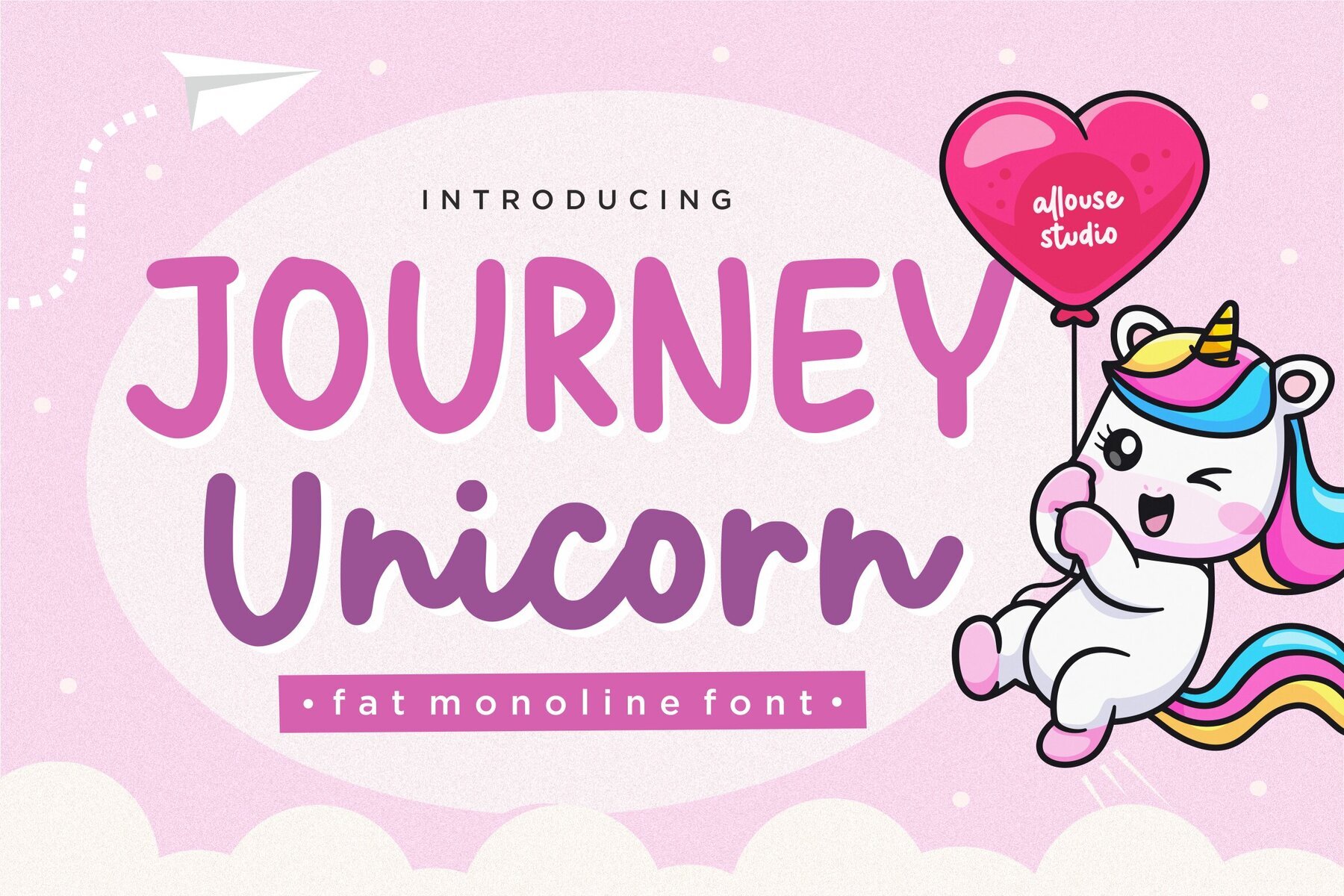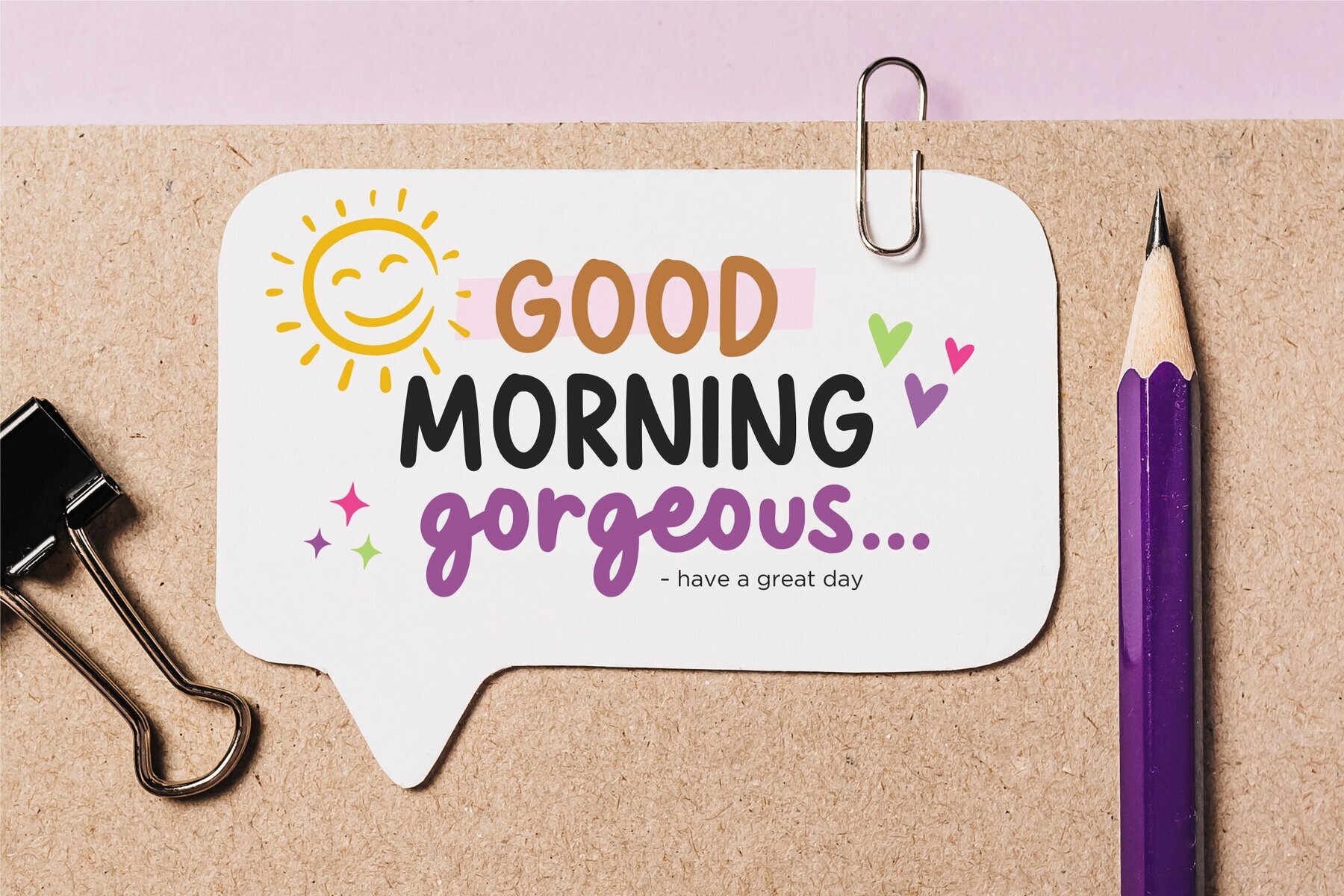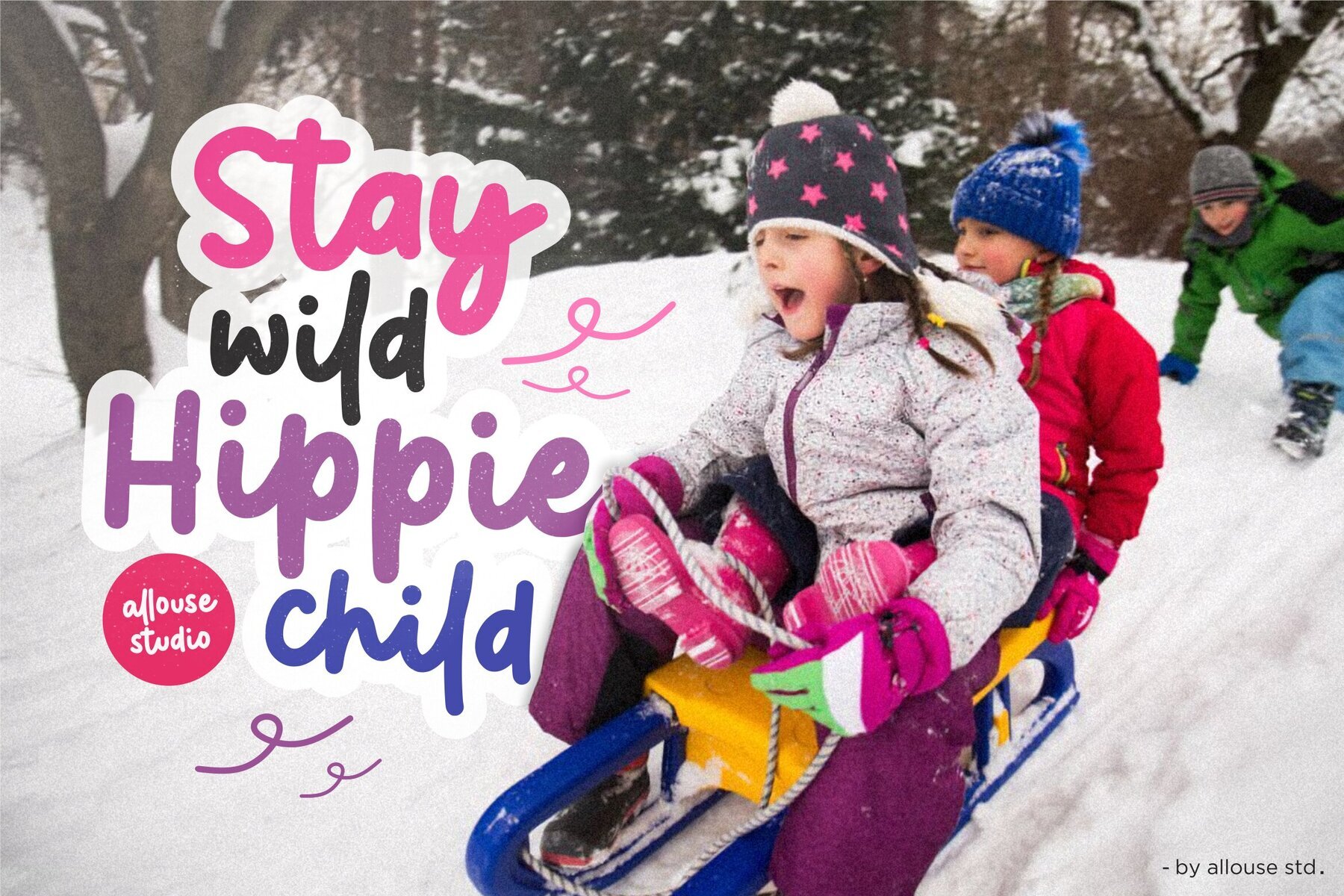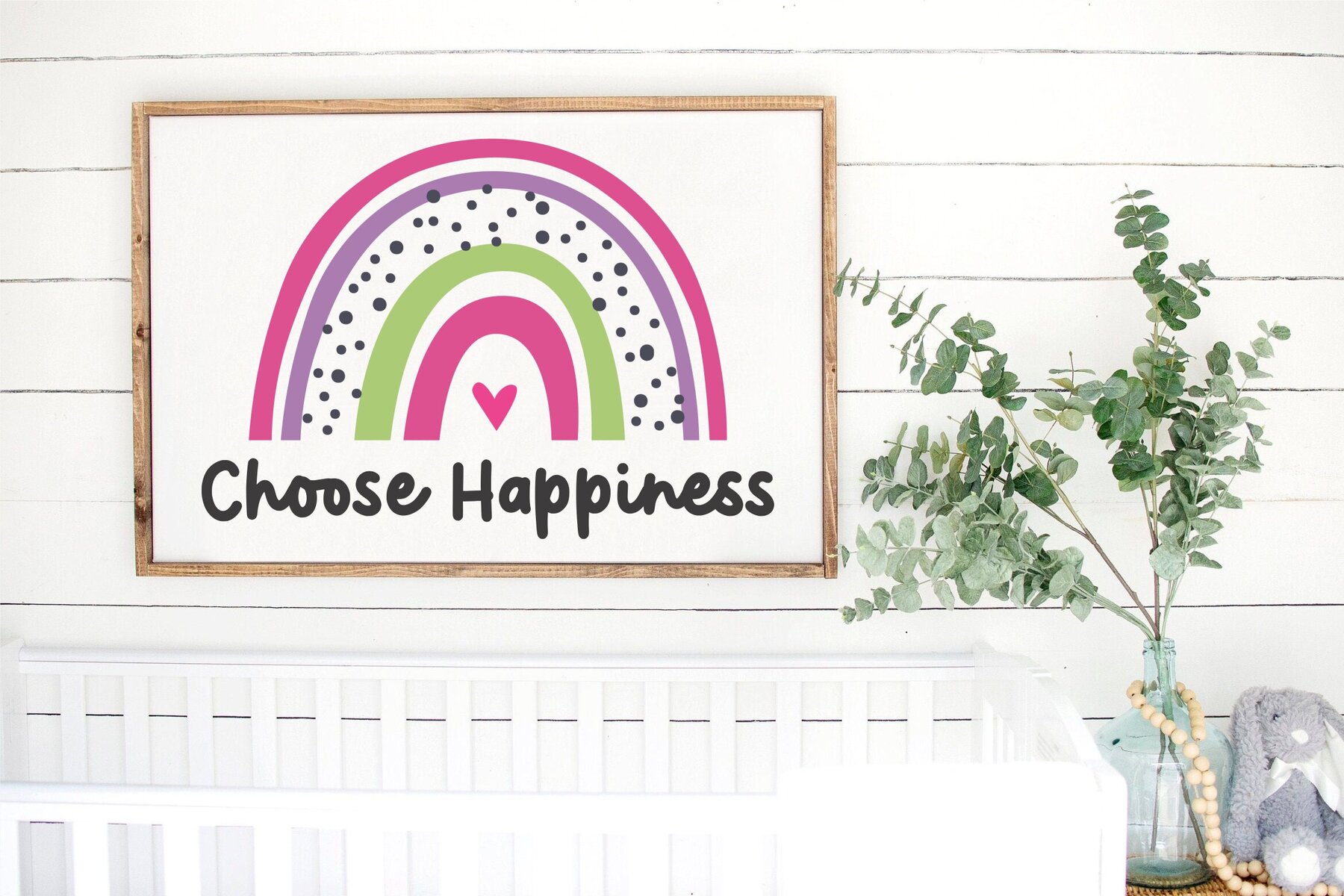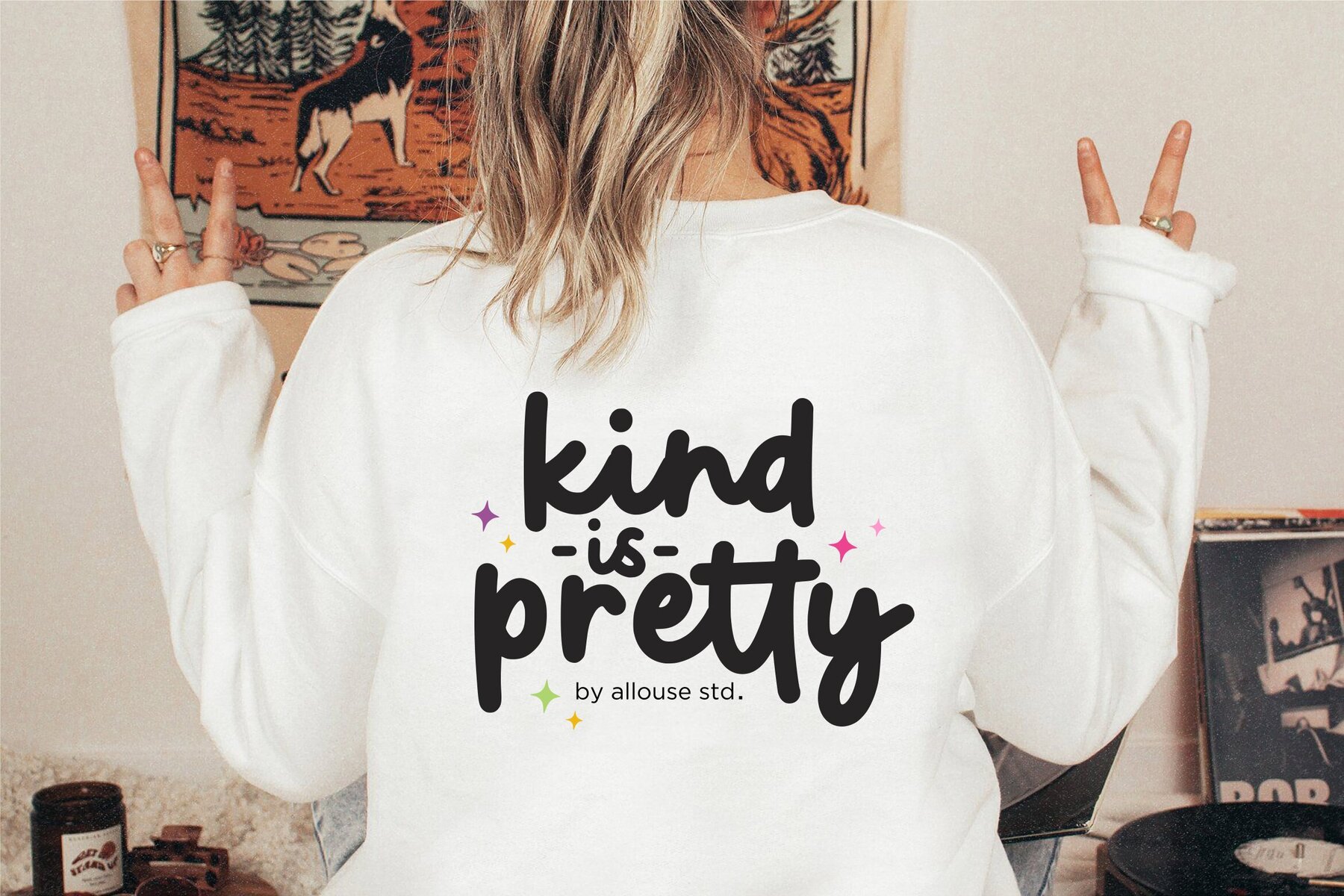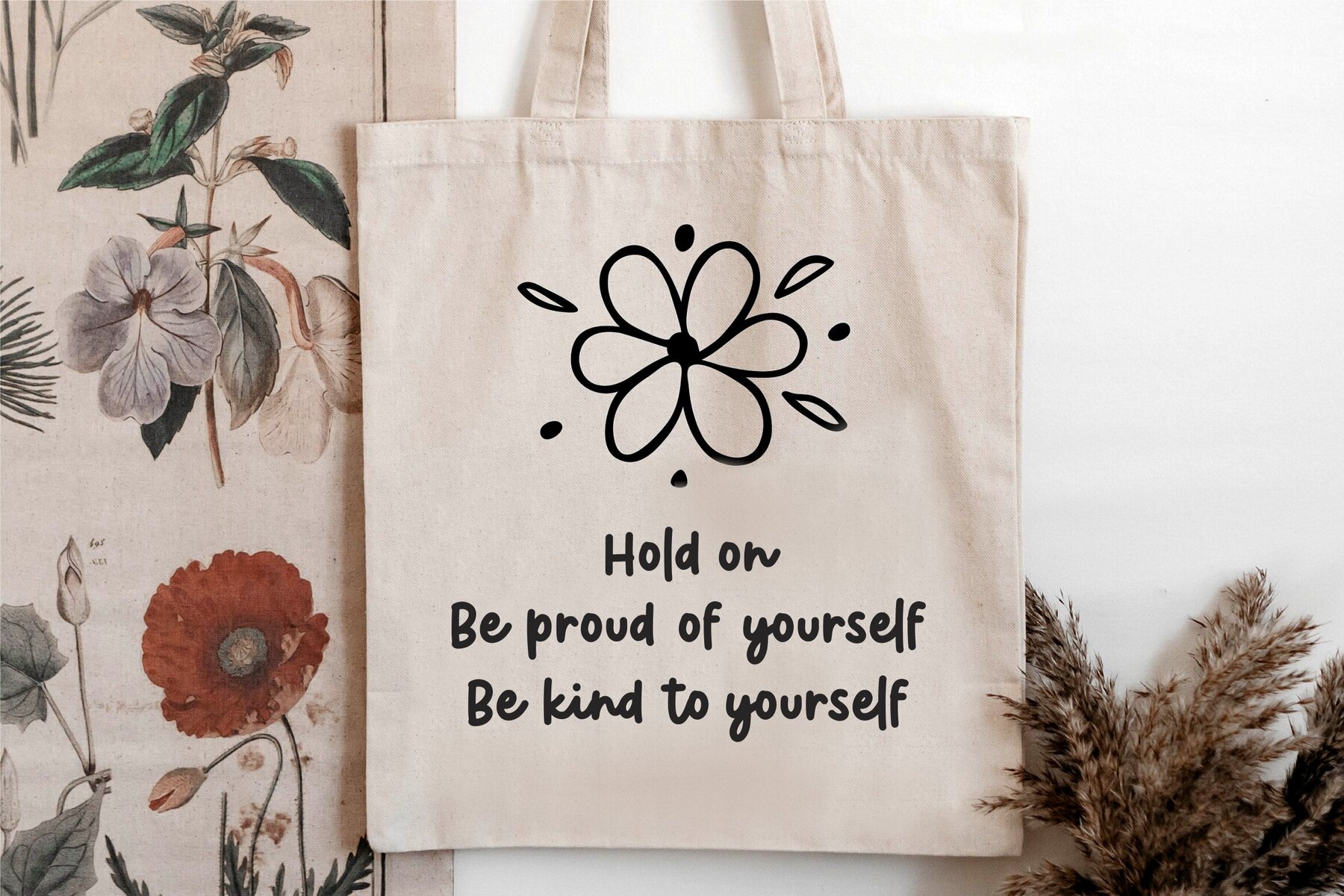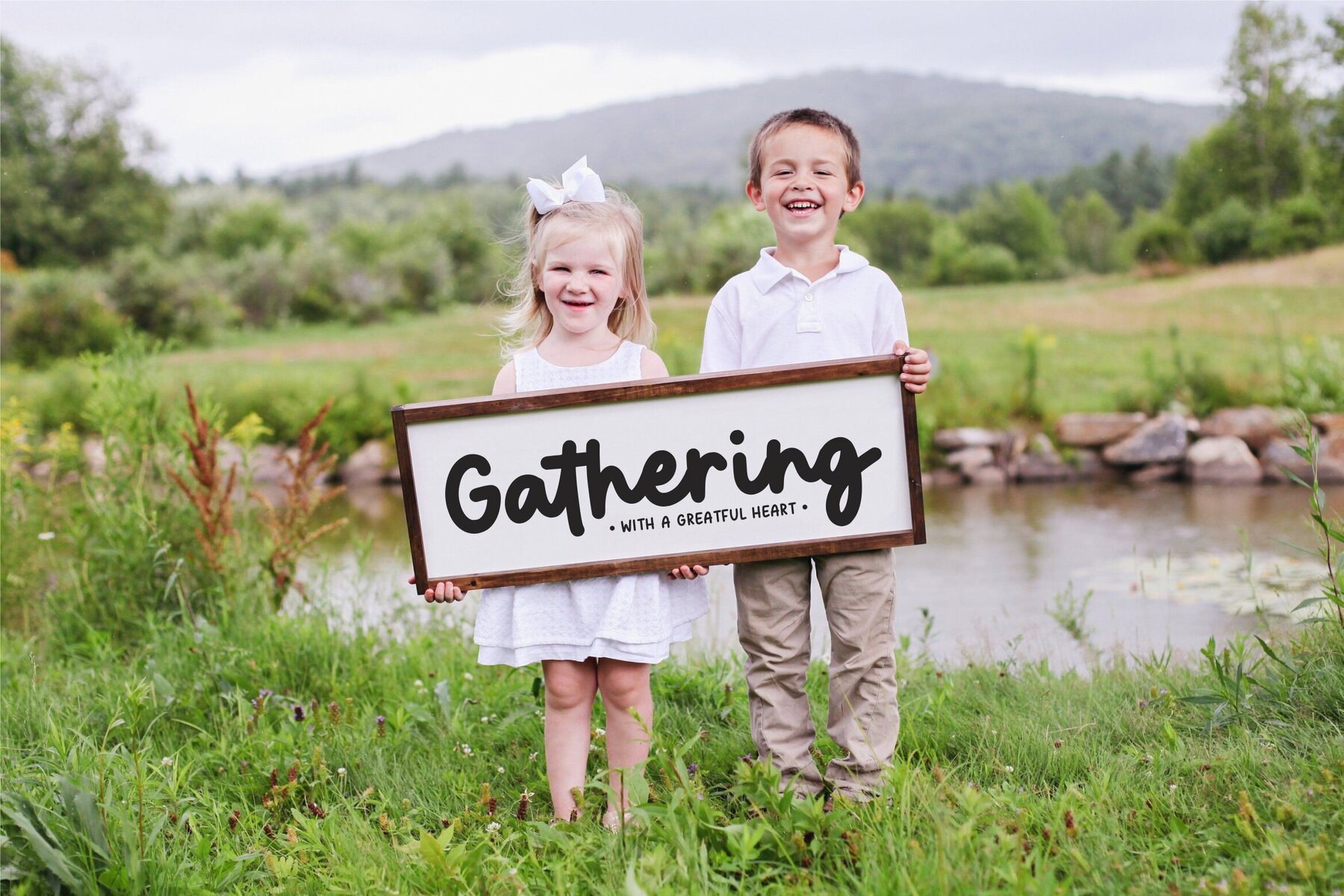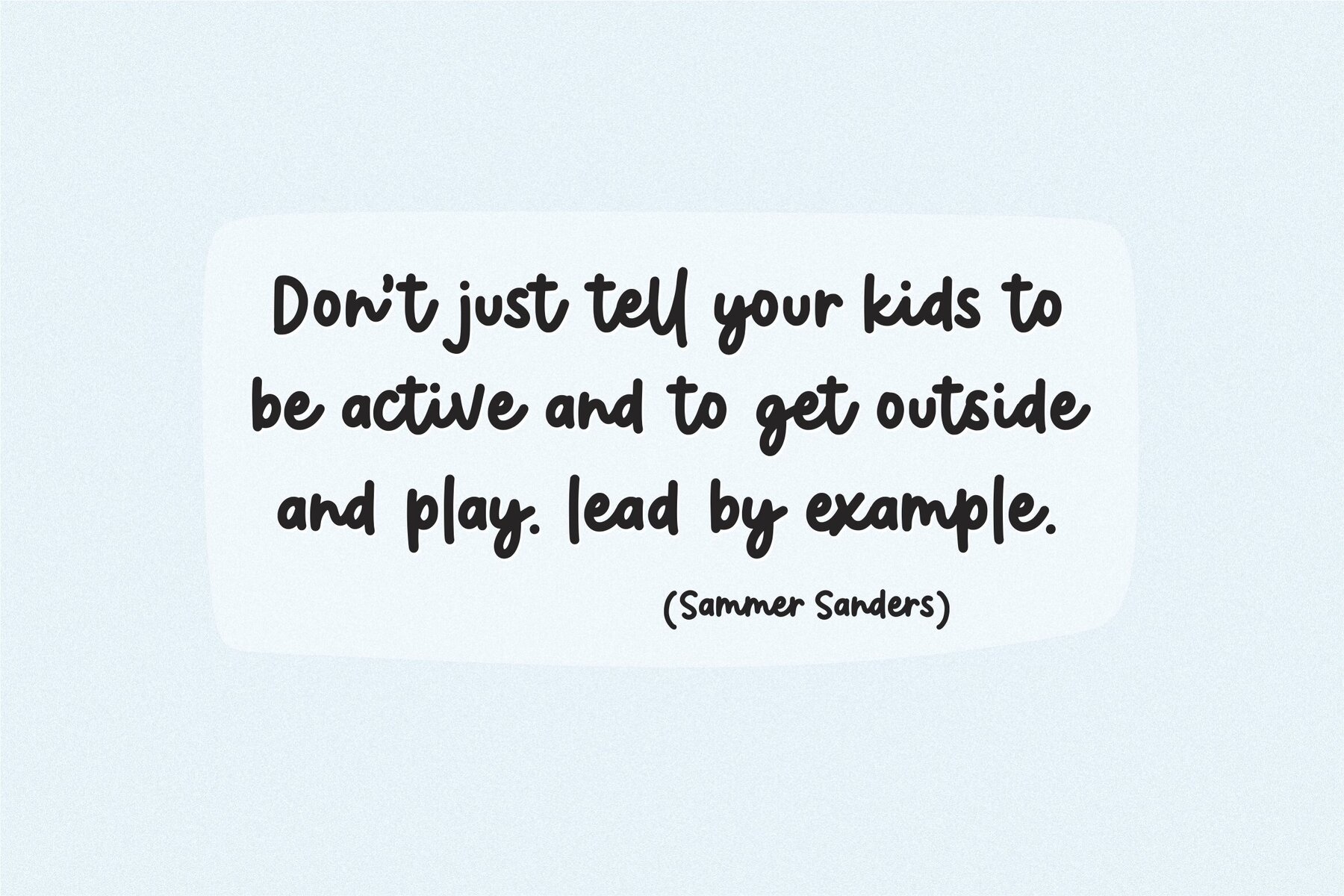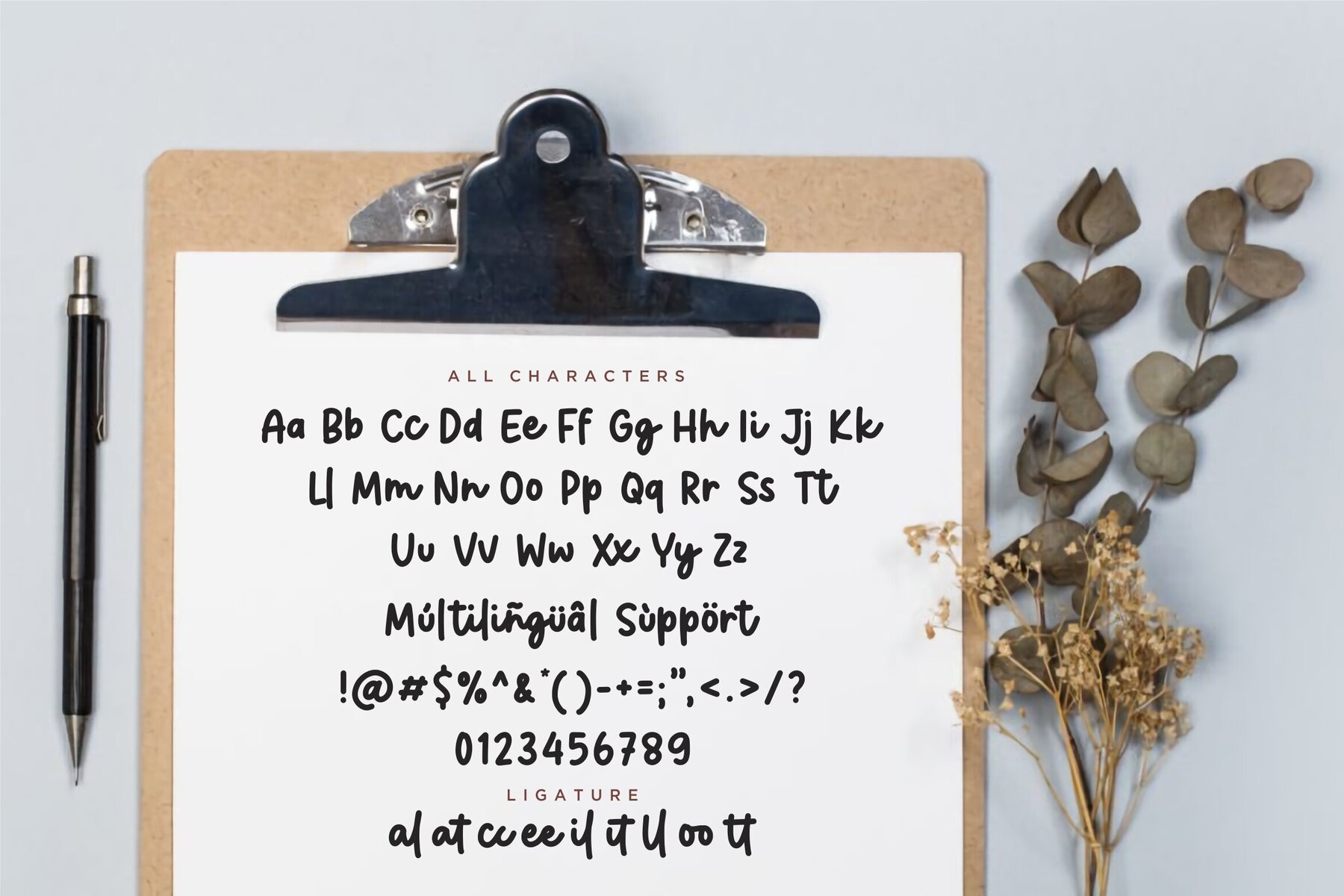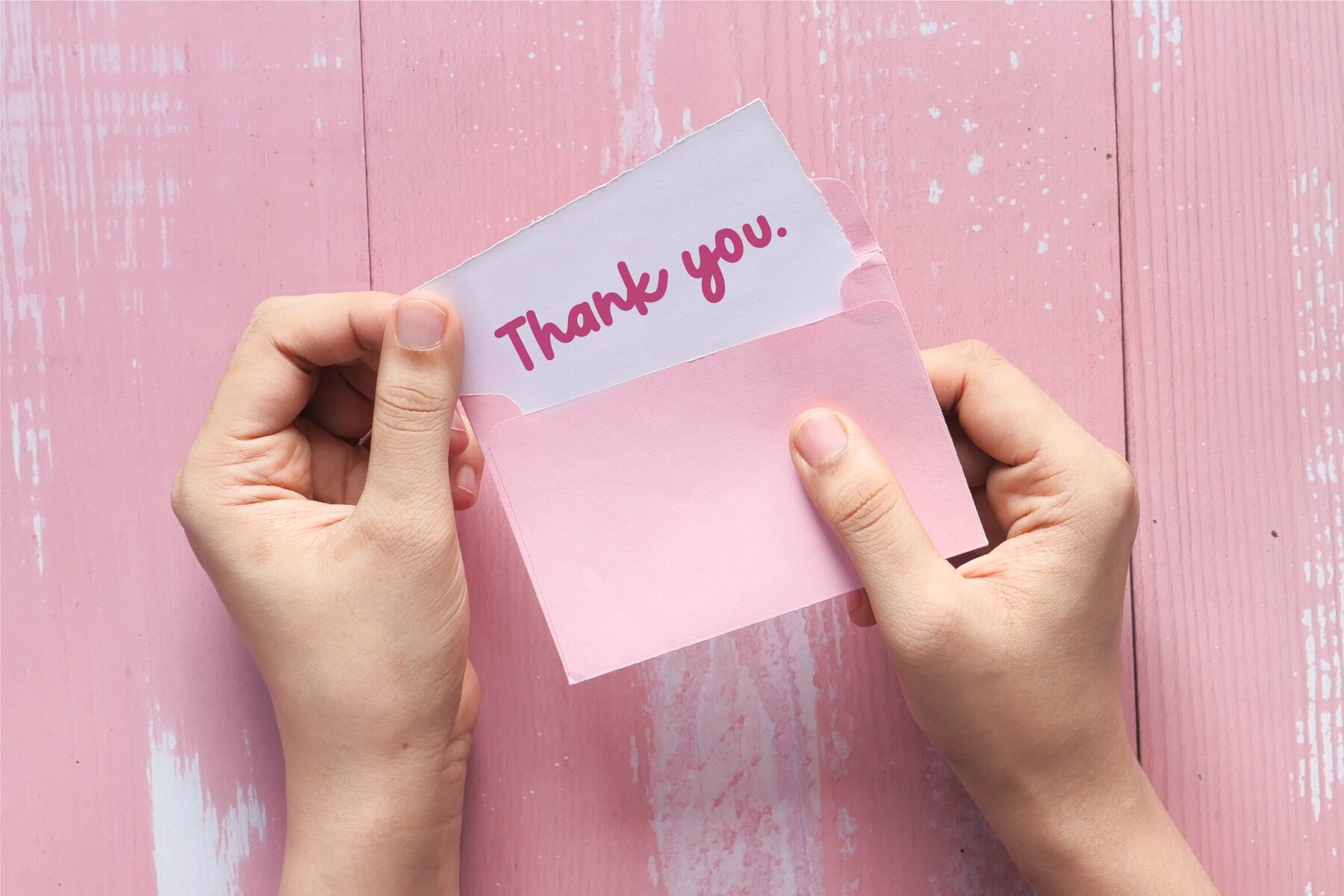
Journey Unicorn Font
Journey Unicorn Regular
Journey Unicorn is a chic and versatile monoline script font, ideally suited for a range of applications. Its elegant design is perfect for product packaging, branding projects, magazines, social media content, and weddings, while also adding a charming touch to any background text. Use Journey Unicorn to enhance your creative projects with a touch of sophisticated style.Journey Unicorn: Monoline Script Font